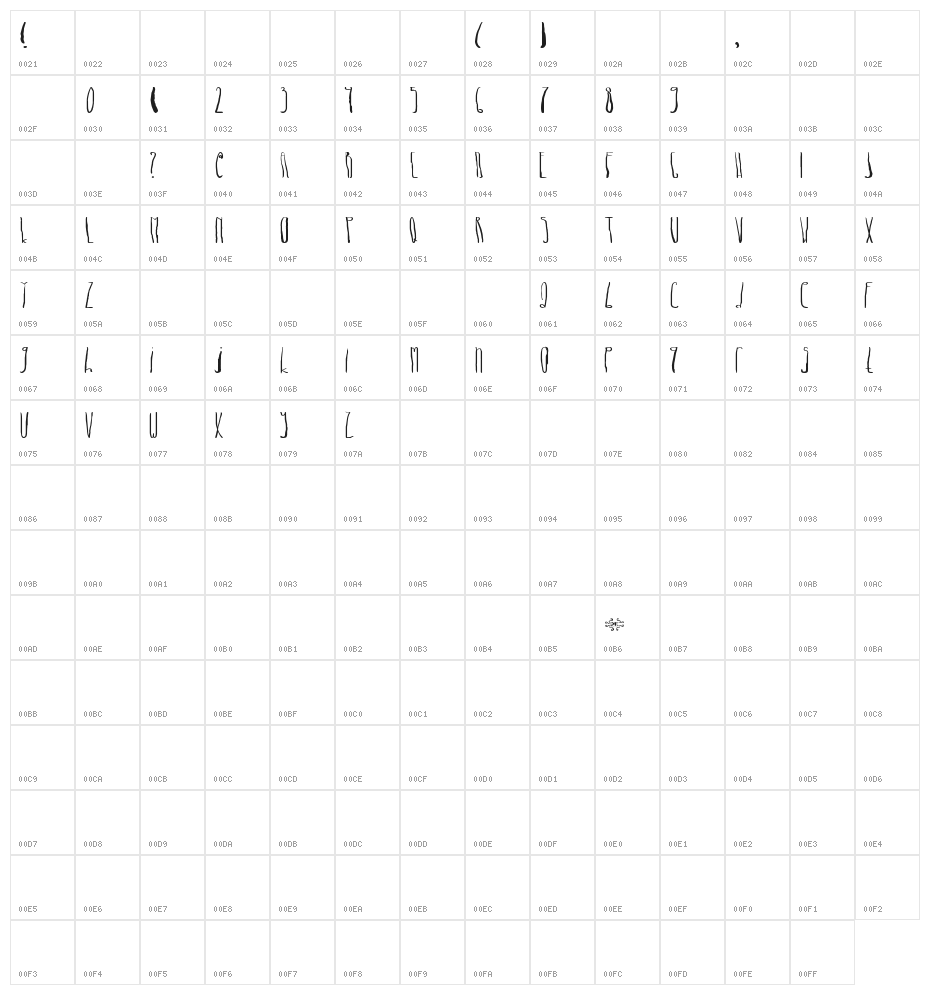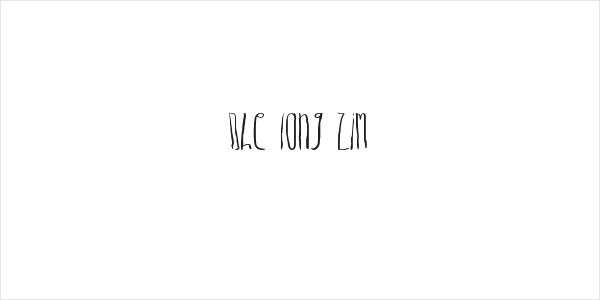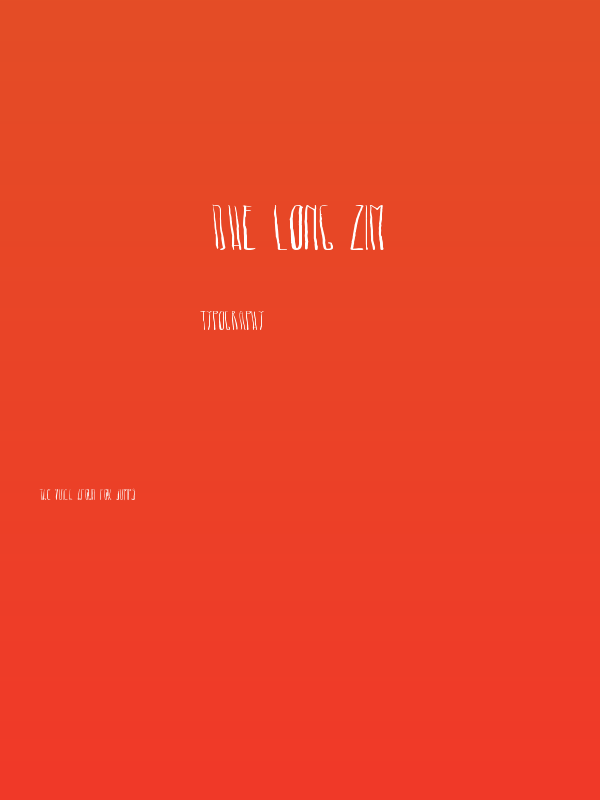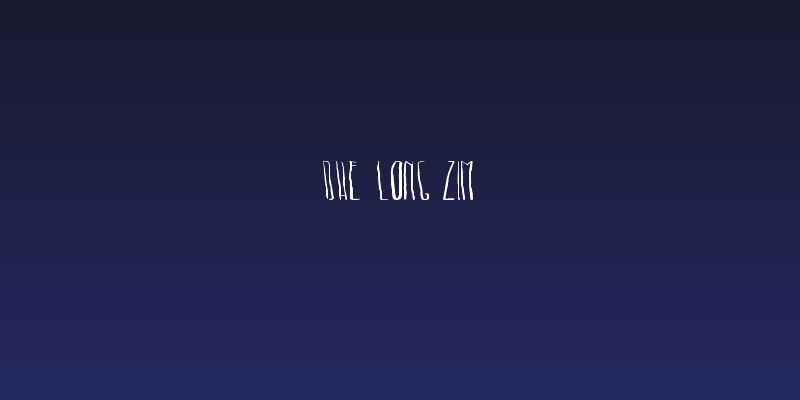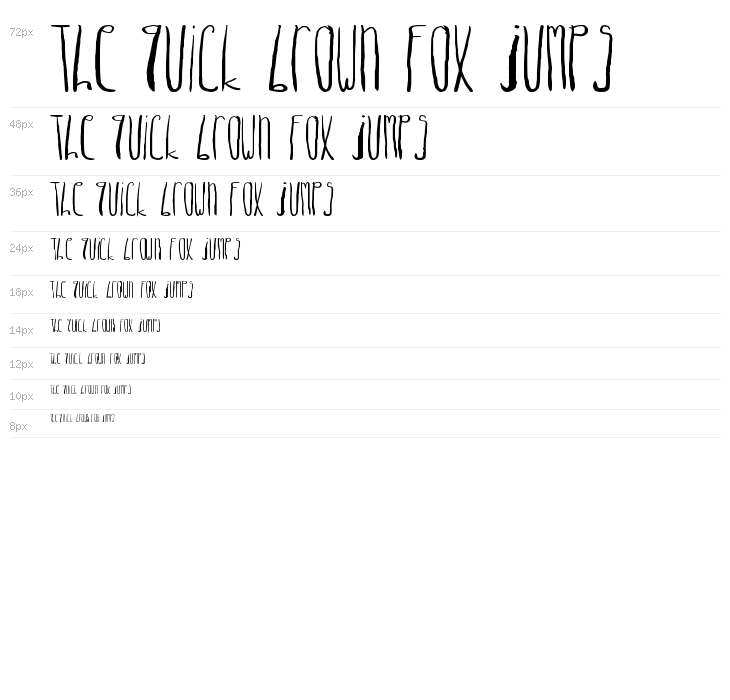
Dhe long zim Font
Dhe long zim Description
This font features an elongated and artistic style with a hand-drawn appearance. The characters are tall and narrow, with varying stroke thickness that adds a dynamic and whimsical feel. The uppercase and lowercase letters maintain a consistent height, creating a cohesive look. The numbers and special characters follow the same design principles, ensuring uniformity across all glyphs. The font's unique style makes it stand out, offering a playful yet sophisticated aesthetic.
DHE-LONG-ZIM UPPERCASE
DHE-LONG-ZIM LOWERCASE
DHE-LONG-ZIM OTHER CHARS